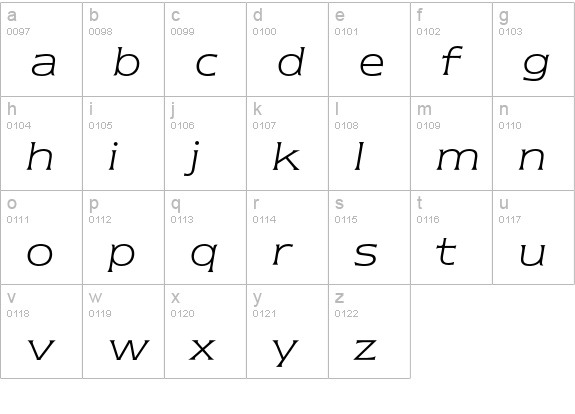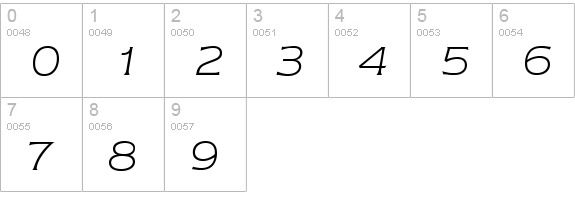
Newtext Light Italic Font Details
Newtext Light Italic is a refined, elegant, italic variant in the Newtext typeface family \xE2\x80\x94 well suited to elegant body text, refined sub-headings, and luxury branding.
Introducing Newtext Light Italic font, a sleek and elegant typeface designed to bring a touch of sophistication to your projects. The delicate curves and gentle slant of this font create a sense of refined style and modernity. Perfect for adding a touch of class to any design, whether it be for invitations, branding, or editorial layouts. And the best part? Newtext Light Italic font is completely free! That's right, this premium font can be freely downloaded at FontsMarket.com, allowing you to elevate your designs without breaking the bank. Don't miss out on the opportunity to add a touch of elegance to your projects with Newtext Light Italic font. Download it today and let your creativity shine!